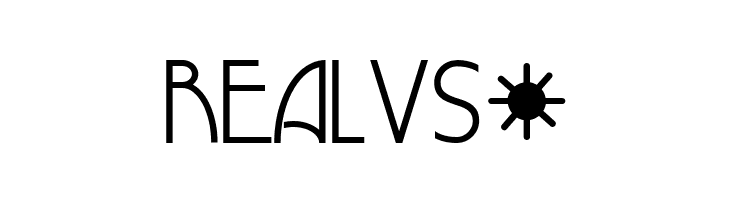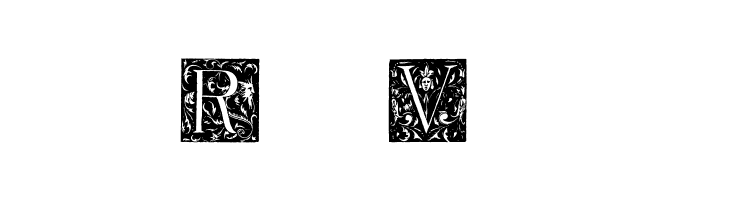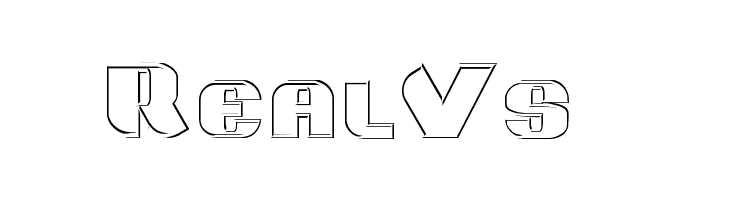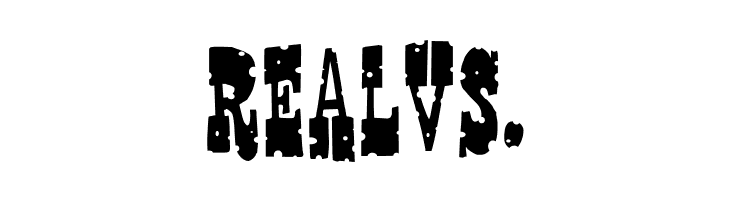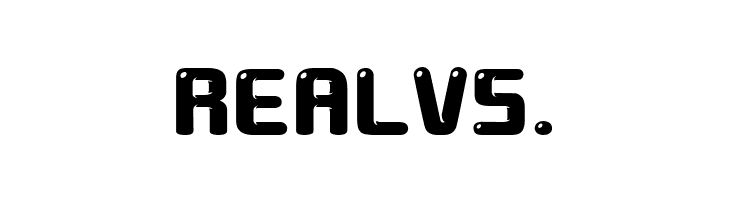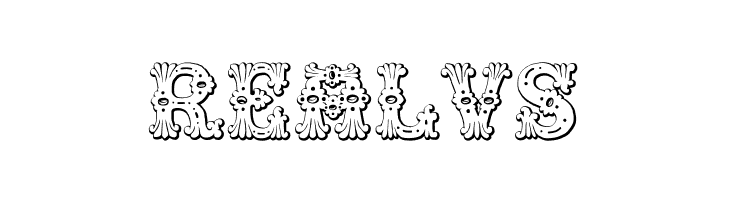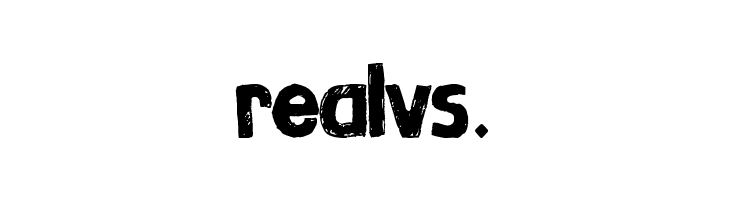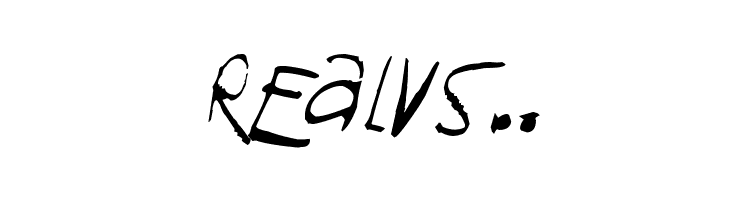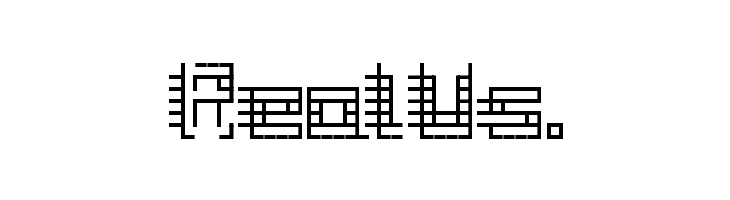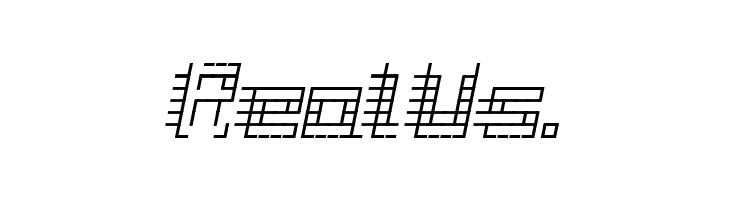
A playful, hand-drawn font with a textured, artistic style.
A bold, italicized grid-like font with a digital, retro-futuristic style.
A modern, grid-based italic font with a digital, pixelated style.
A grid-based, pixelated font with a retro digital aesthetic.
A bold, grid-based font with a pixelated, retro digital style.
A modern, geometric font with elongated, narrow letterforms and rounded edges.
Cartoon dingbat font with character illustrations.
An ornate, decorative font with intricate floral embellishments.
A whimsical, cartoon-style display font with playful curves.
A bold, modern font with a geometric and impactful design.
A bold, distressed font with a rugged, vintage appearance.
A bold, playful font with a three-dimensional effect and rounded, irregular characters.
A bold, playful font with strong, impactful characters.
A bold, hand-drawn font with an expressive, graffiti-like style.
A dynamic, hand-drawn style font with bold, irregular strokes.
A bold, hand-drawn font with textured strokes and dynamic forms.
A sleek, modern font with clean lines and geometric shapes.
A bold, vintage-style font with a three-dimensional shadow effect.
A bold, geometric font with a futuristic, angular design.
A playful, ghost-themed decorative font with unique character designs.
A bold, rounded font with an industrial, mechanical aesthetic.
A whimsical and decorative font with tall, slender uppercase letters and unique embellishments.
A futuristic, geometric font with angular edges and consistent thickness.